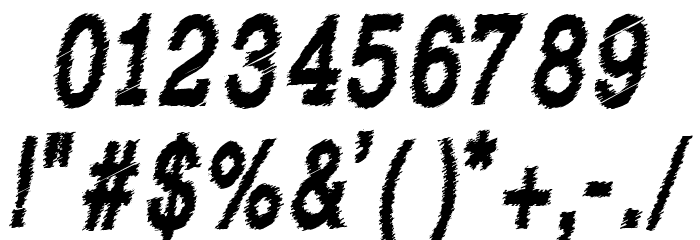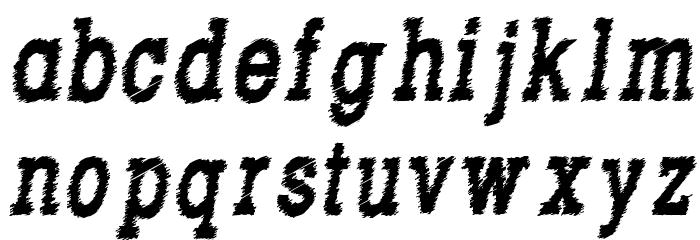
RowdyTypemachine-CondensedBoldI Font
RowdyTypemachine-CondensedBoldI Description
This font features a bold and condensed style with a distinctive textured appearance, reminiscent of brush strokes or rough sketches. The uppercase and lowercase letters maintain a consistent height, contributing to its compact and impactful look. The numbers and special characters follow the same bold and textured design, ensuring uniformity across all glyphs. The font's unique texture adds a dynamic and energetic feel, making it suitable for projects that require a strong visual impact. Its condensed nature allows for efficient use of space, making it ideal for headlines or titles where space is limited.
A bold, condensed font with a textured, brush-like appearance from Uncategorized fonts.
- Proposed Projects: Ideal for posters, album covers, branding, and any design needing a bold, artistic touch.
- Character Spacing: Tight
- Overall Style: Modern, Artistic